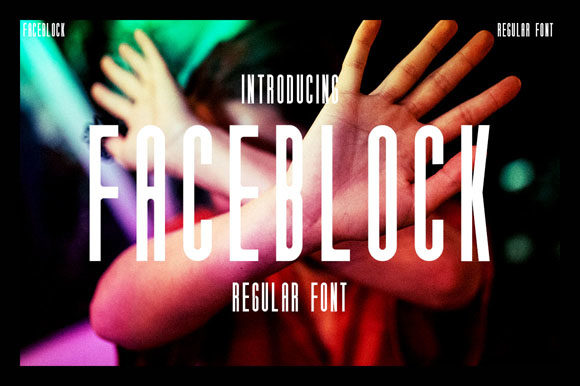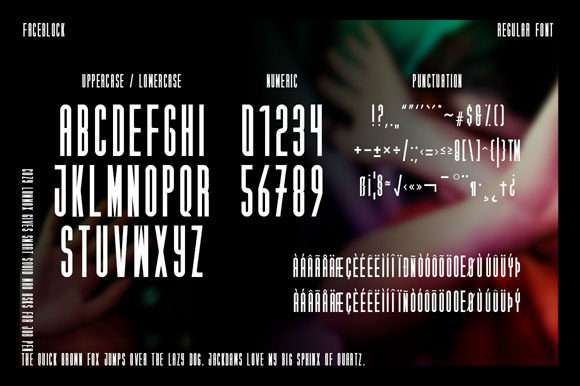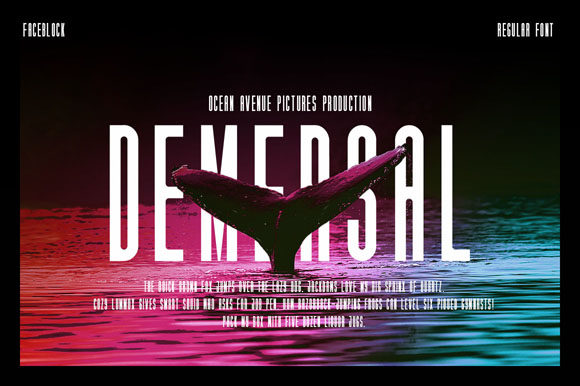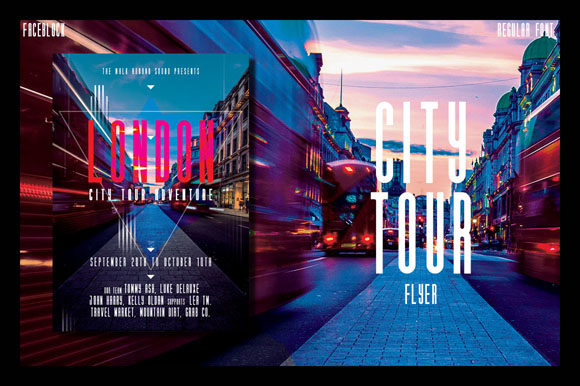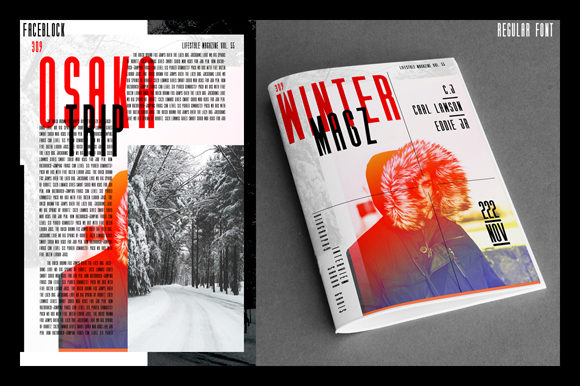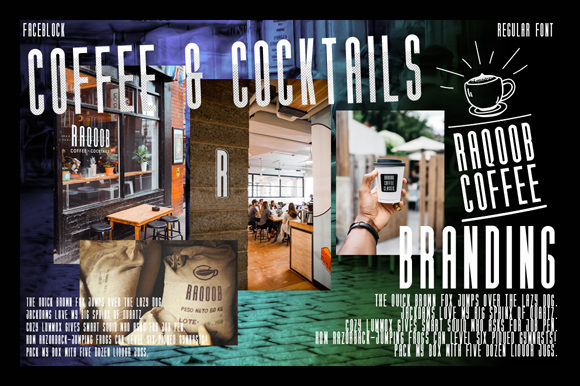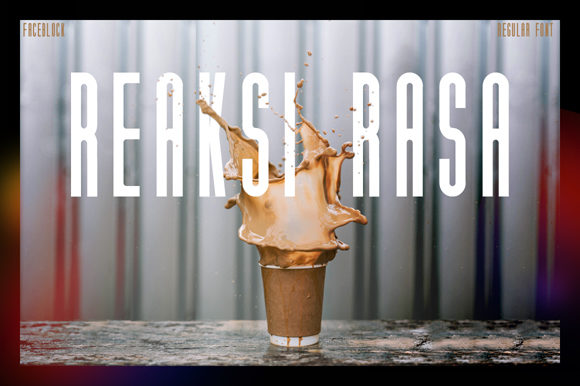
HomeSans Serif FontsFaceblock Font Sans Serif Fonts Faceblock Font FacebookTwitterPinterestWhatsApp Faceblock Font 1 of 7 About Faceblock Font Faceblock is a modern sans serif font. It will give a smart touch to your designs and is perfect for logos, magazines, branding and much more! DOWNLOAD NOW People also explored Bethny Charlie – Modern Script Font Ronald Hewitt Font Ice Cream Font Elder Futhark Font Uphill Font Snowing Font Nottebook Font Falcon Harfing Font Beaversa Font 162 0 TagsFaceblock Font Previous articleAntler Bold FontNext articleBraxeline Font LEAVE A REPLY Cancel reply Comment: Please enter your comment! Name:* Please enter your name here Email:* You have entered an incorrect email address! Please enter your email address here Website: Save my name, email, and website in this browser for the next time I comment. Personal Use Free Shelly Personal Use Free Read more about this font Critical Personal Use Free Read more about this font Vinograd Personal Use Free Read more about this font Avagan Personal Use Free Read more about this font BLOG Best Fonts for T-Shirt Design – Top 2025 Picks In 2025, t-shirt design has become more than just fashion—it's a form of self-expression. Whether you're... Free Fonts Risk: Why Free Fonts Can Be Dangerous for Designers Transform Your Website: Elevate Your Typography with 7 Best Web Font Generators Using Fonts in Digital Marketing: Tips to Strengthen Your Brand Identity